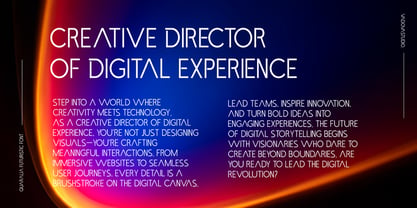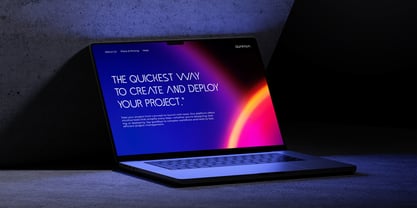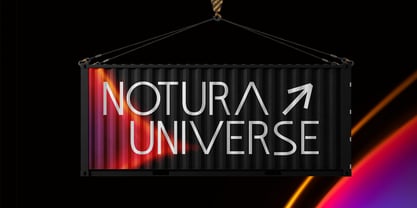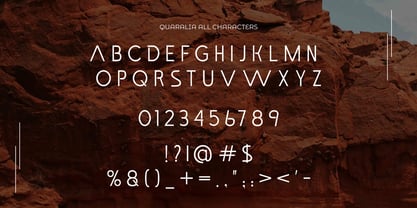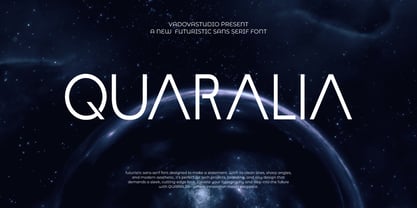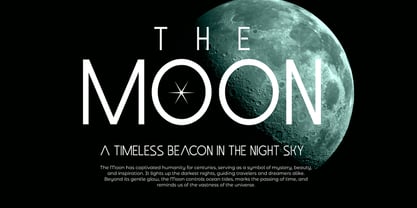
Quaralia
von Vadova Std
Die Schriftfamilie Quaralia wurde von entworfen und von Vadova Std veröffentlicht. Quaralia enthält 1 Stile. Mehr über diese Familie
Quaralia is a sleek and visionary futuristic sans serif font that blends sharp elegance with cutting-edge geometric design. Built to embody the future of typography, Quaralia features a clean structure, streamlined letterforms, and refined visual clarity resulting in a font that exudes both innovation and sophistication. Its core design is inspired by modern sci-fi aesthetics and minimalist space-age architecture, making it ideal for digital projects that require a distinctly progressive and polished look. Whether used for UI/UX designs, tech presentations, futuristic movie posters, NFT branding, digital product packaging, or immersive game titles, Quaralia delivers a commanding presence that captures attention. It's especially well-suited for creative professionals, digital agencies, startups, and futuristic design studios seeking to convey a bold, forward-thinking identity. From innovative branding concepts to editorial layouts that need a modern punch, Quaralia offers versatility with a unique, high-tech voice.